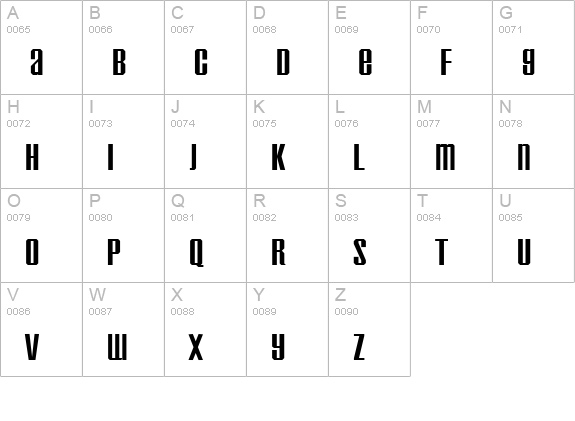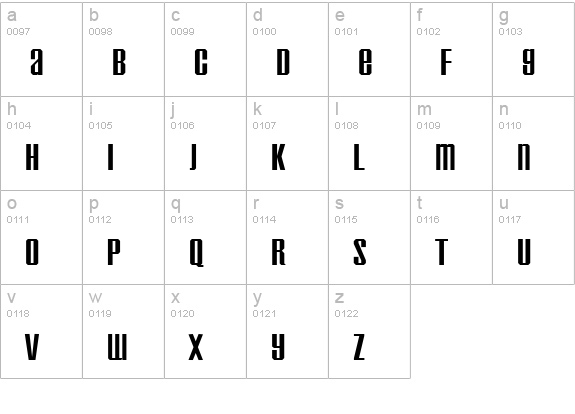
Inflammable Age Font Details
Introducing the captivating Inflammable Age font, a stunning display typeface that effortlessly combines elegance with a touch of edginess. This font is designed to make a bold statement and add a fiery spark to any creative project. With its unique and eye-catching letterforms, Inflammable Age commands attention and demands to be noticed. The sharp angles and intricate details of each character create a sense of dynamism and intensity, making it perfect for a wide range of design applications. Whether you're designing a striking logo, a captivating poster, or a visually stunning website, Inflammable Age will ignite your creativity and set your project ablaze. Its versatility allows it to be used both as a headline font to grab attention or as a supporting font to add a touch of flair to your designs. But what makes Inflammable Age even more remarkable is that it is freely available to download at FontsMarket.com. Yes, you read that right - this incredible font can be yours without costing a penny. Now you can unleash your creativity without any restrictions, and let the sparks of inspiration fly. Don't miss out on the opportunity to elevate your design projects to new heights. Download Inflammable Age today, and experience the power of this sizzling font firsthand. Set your designs on fire and watch them ignite with the captivating charm of Inflammable Age.